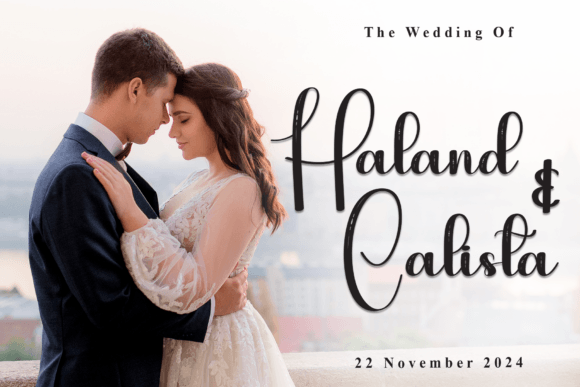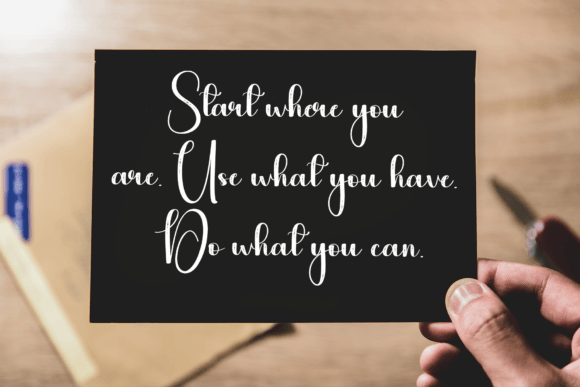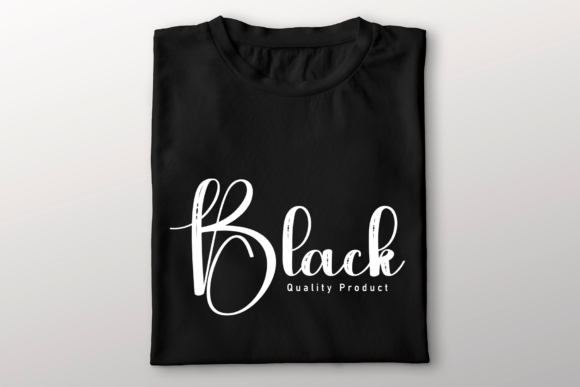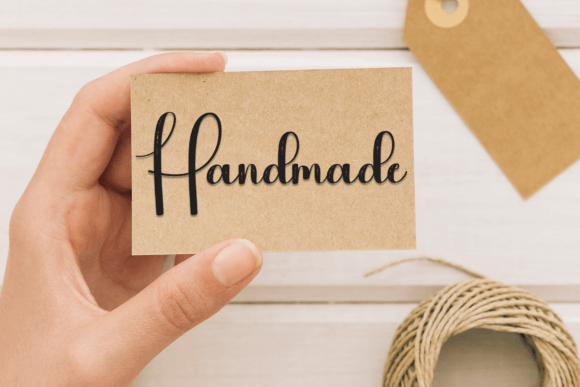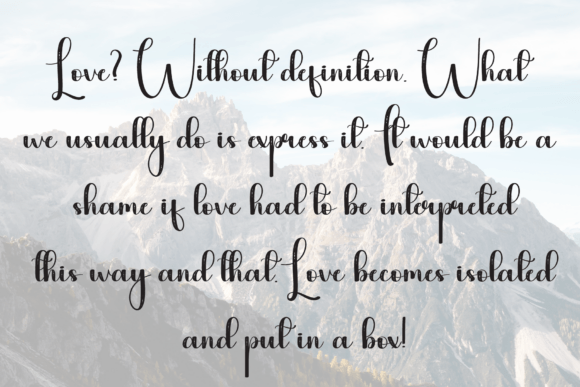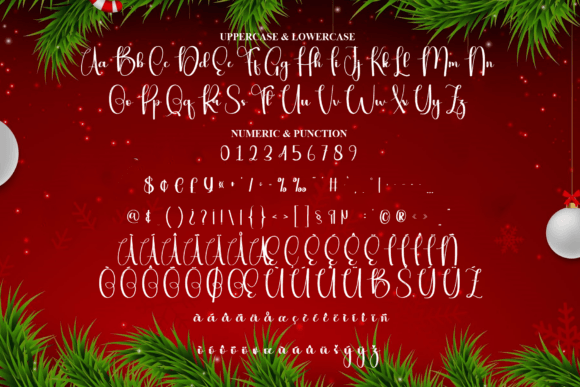
Christmas Font: The Perfect Addition to Your Holiday Designs
Are you looking for a font that captures the essence of the holiday season? Look no further than Christmas Font, a lovely handwritten script font that feels both elegant and playful. With its flowing, smooth lines, this font is perfect for creating beautiful designs like cards, logos, or invitations that are sure to impress.
What is Christmas Font?
Christmas Font is a unique and charming handwritten script font that is designed to evoke the feeling of elegance and playfulness. Its smooth, flowing lines give it a personal and artistic touch, making it perfect for a wide range of design projects. Whether you’re creating holiday cards, logos, or invitations, Christmas Font is the perfect choice.
Key Features of Christmas Font
- Elegant and Playful: Christmas Font has a unique blend of elegance and playfulness, making it perfect for a wide range of design projects.
- Handwritten Script: This font has a beautiful handwritten script style that gives it a personal and artistic touch.
- Smooth Lines: The smooth, flowing lines of Christmas Font make it perfect for creating beautiful designs like cards, logos, or invitations.
- Versatile: Christmas Font is a versatile font that can be used for a wide range of design projects, from holiday cards to logos and invitations.
Uses for Christmas Font
Christmas Font is a versatile font that can be used for a wide range of design projects. Here are a few ideas to get you started:
- Holiday Cards: Create beautiful holiday cards with Christmas Font that are sure to impress your friends and family.
- Logos: Use Christmas Font to create a unique and memorable logo for your business or brand.
- Invitations: Create elegant and playful invitations with Christmas Font that are perfect for holiday parties and events.
- Social Media Graphics: Use Christmas Font to create eye-catching social media graphics that are sure to stand out.
Tips for Using Christmas Font
Here are a few tips for using Christmas Font in your designs:
- Pair with Other Fonts: Christmas Font pairs well with other fonts, so don’t be afraid to experiment with different combinations.
- Use for Headlines: Christmas Font is perfect for headlines and titles, so use it to add a touch of elegance and playfulness to your designs.
- Experiment with Colors: Christmas Font looks great in a variety of colors, so don’t be afraid to experiment with different color schemes.
Christmas Font is a beautiful and versatile font that is perfect for a wide range of design projects. With its elegant and playful style, smooth lines, and handwritten script, this font is sure to add a touch of magic to your designs. Whether you’re creating holiday cards, logos, or invitations, Christmas Font is the perfect choice. So why wait? Download Christmas Font today and start creating beautiful designs that are sure to impress.
- What is Christmas Font? Christmas Font is a lovely handwritten script font that feels elegant and playful.